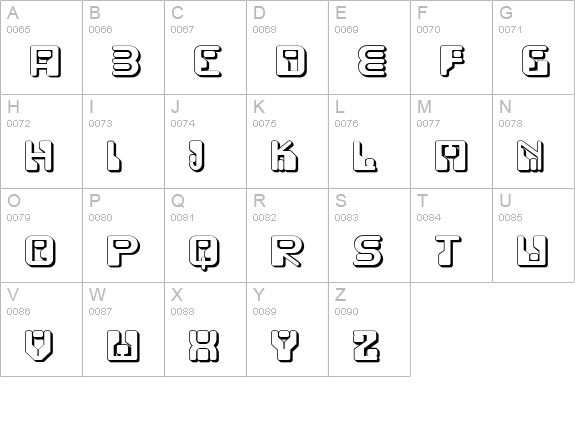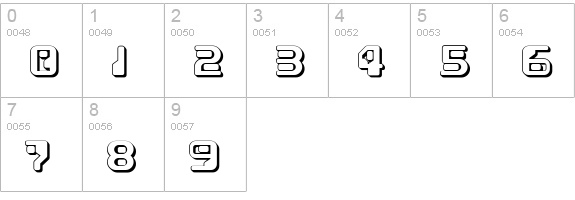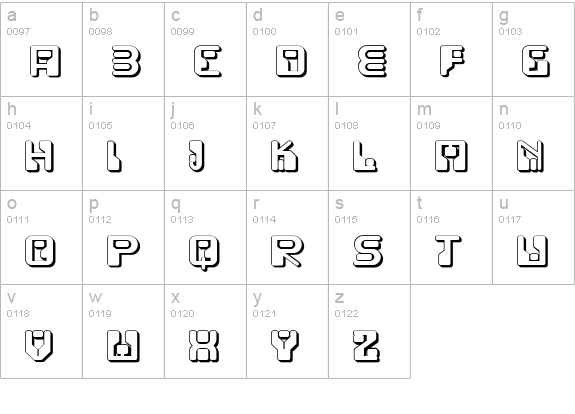
Funky Rundkopf Two NF font is a playful and quirky typeface with a unique personality. Its rounded edges and bold, eye-catching design make it perfect for adding a touch of fun to your projects. Whether you're creating posters, logos, or social media graphics, this font is sure to stand out. The best part? Funky Rundkopf Two NF font is available for free download at FontsMarket.com. You can easily access this versatile and stylish font to enhance your designs without any cost. With its charming aesthetic and effortless readability, Funky Rundkopf Two NF font is a must-have addition to your font collection. Let your creativity shine with this delightful and freely available typeface.